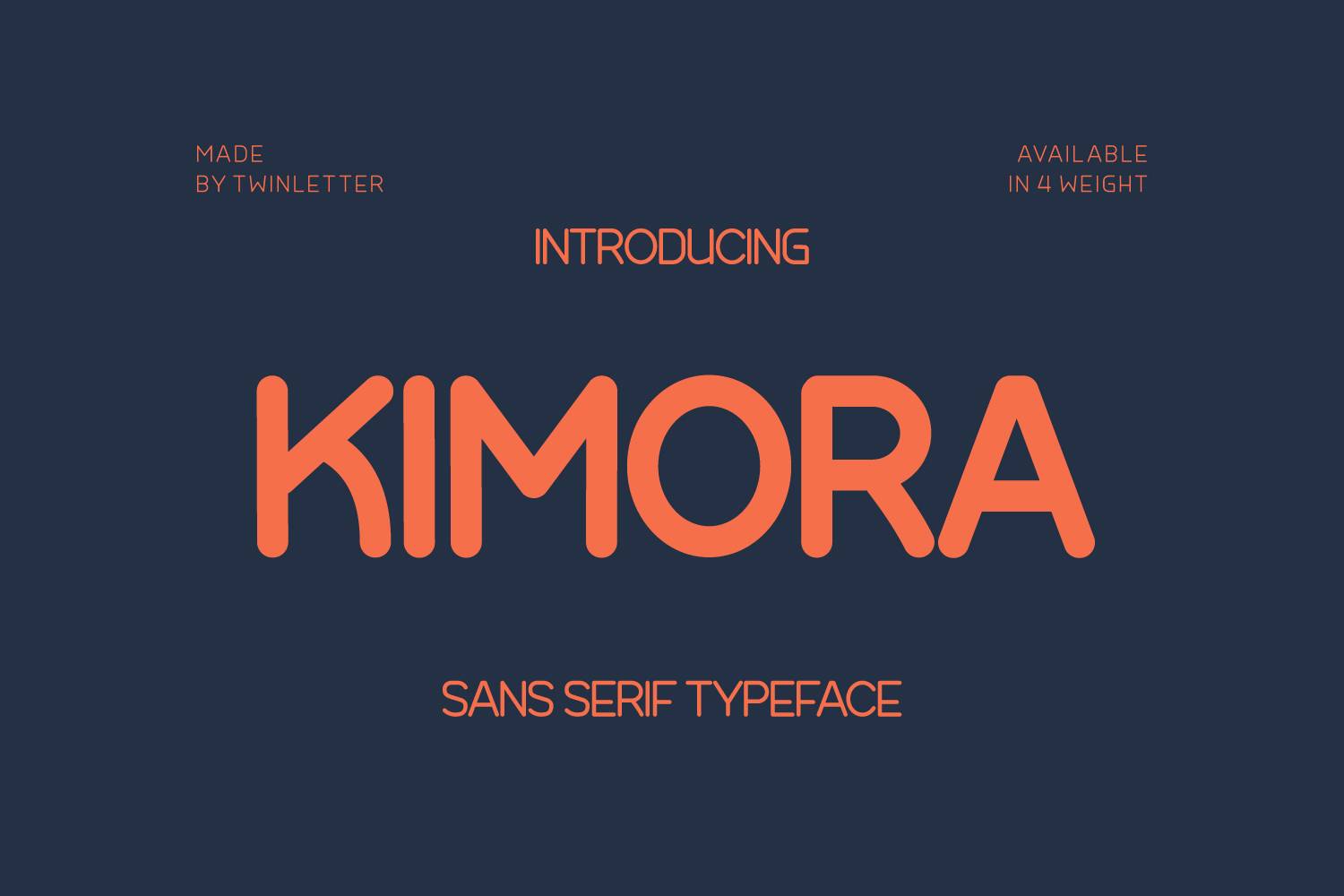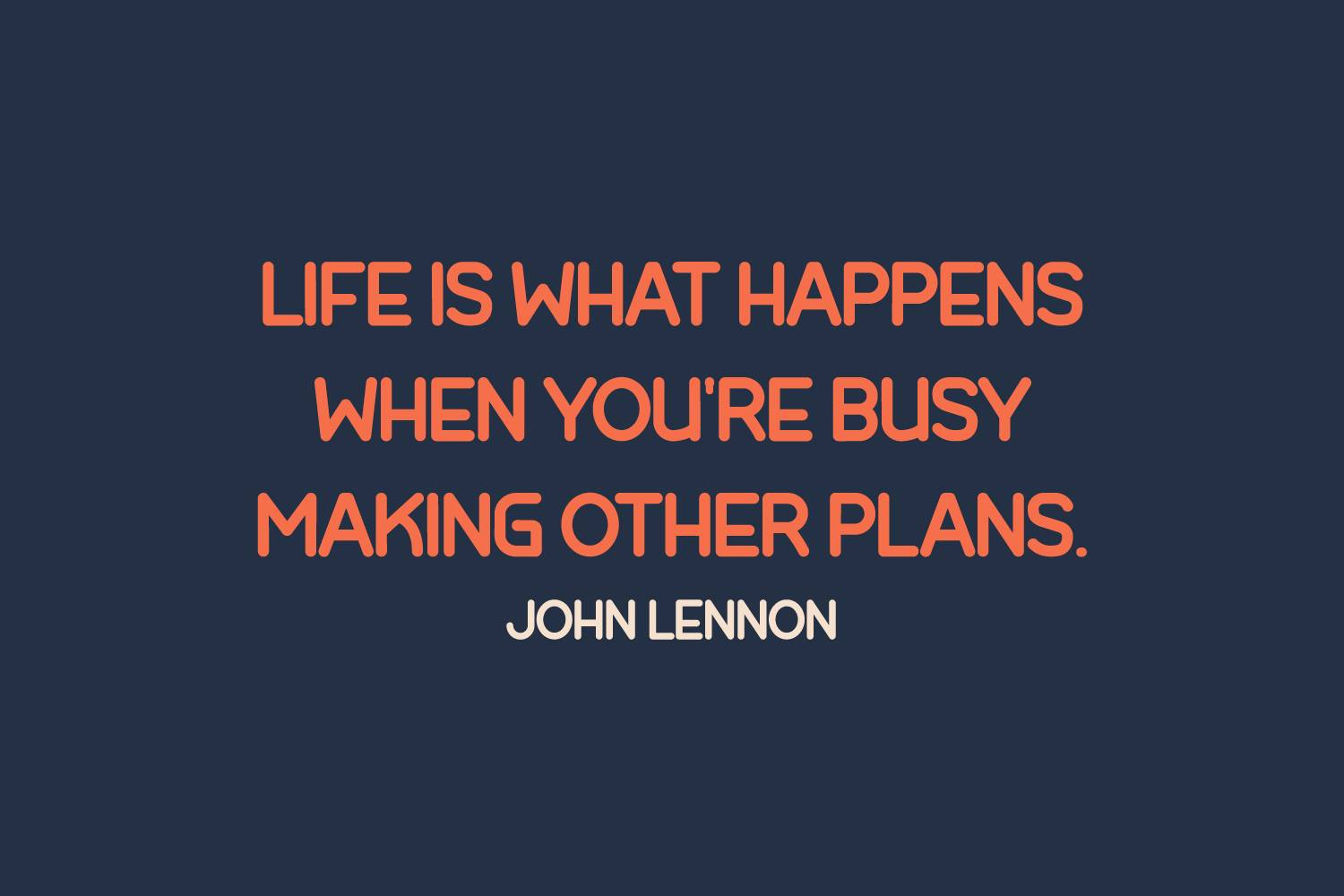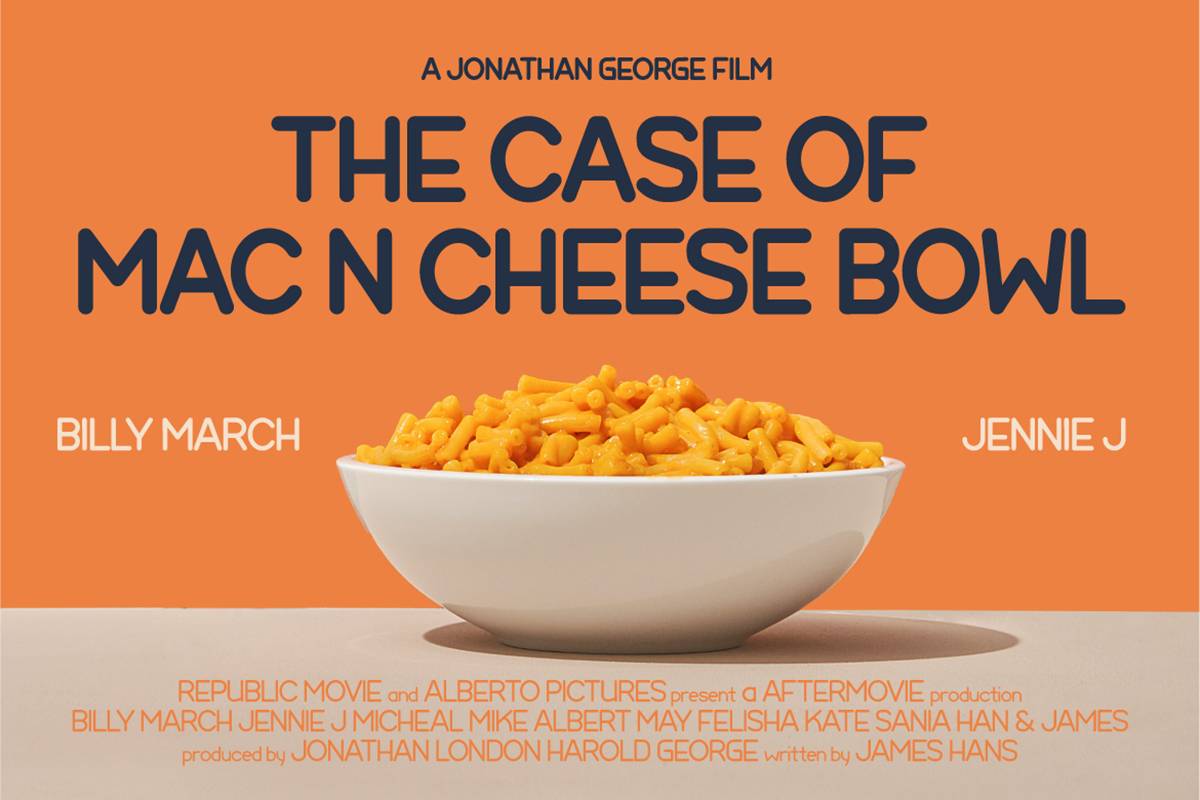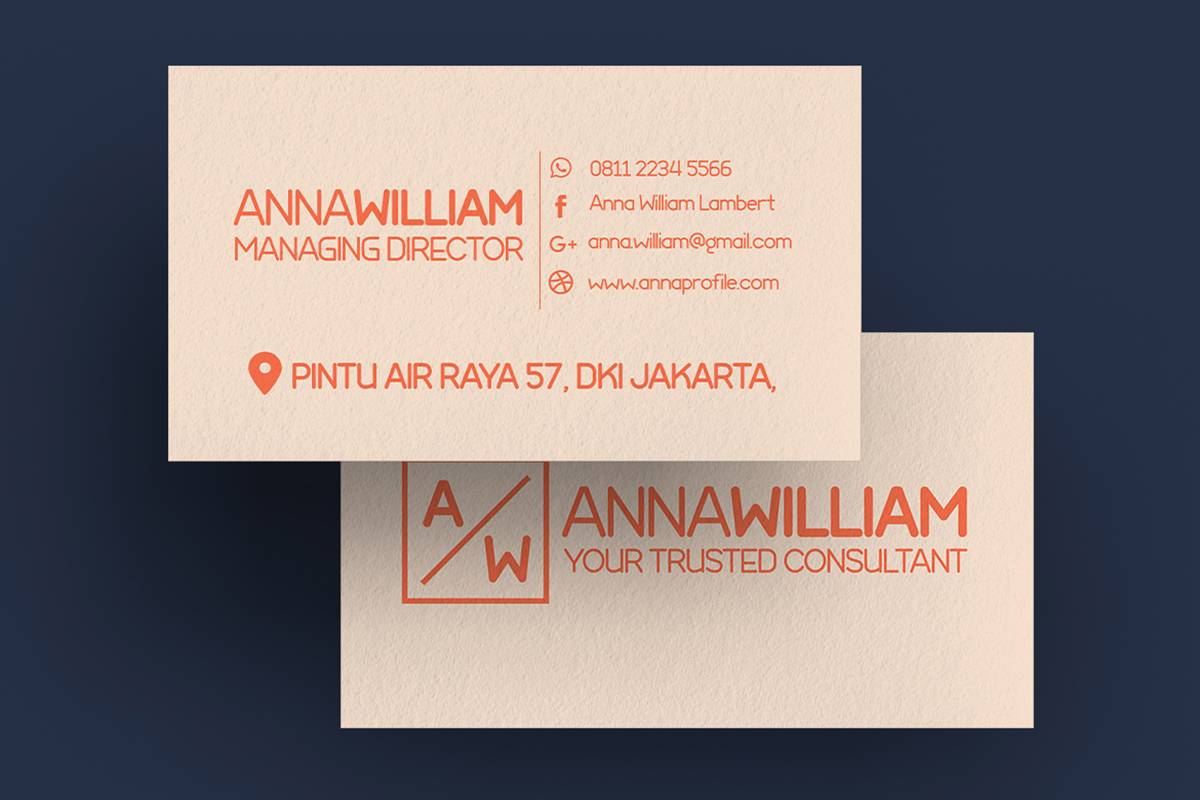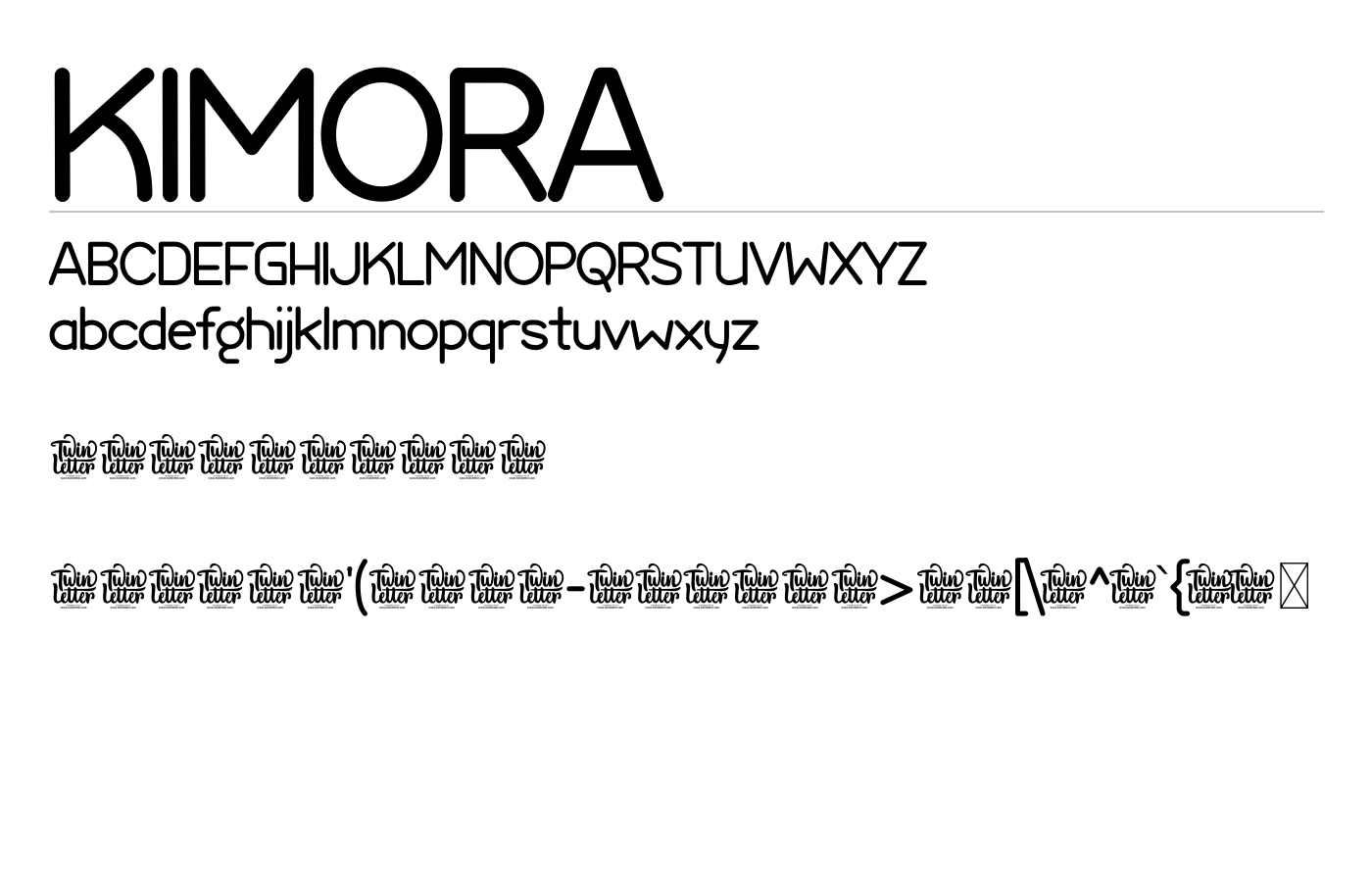
Kimora is a sleek and modern sans serif font characterized by its clean, geometric lines and rounded terminals, giving it a friendly yet contemporary appearance. Its light weight and open letterforms create an airy feel, making it ideal for digital screens, branding, and headlines where clarity and a sophisticated minimalist style are desired. This font works well for fashion, tech, and lifestyle brands seeking a fresh and approachable personality.
Kimora Font
About Kimora Font
| Font family | Kimora Font |
| Designer | Ziyad |